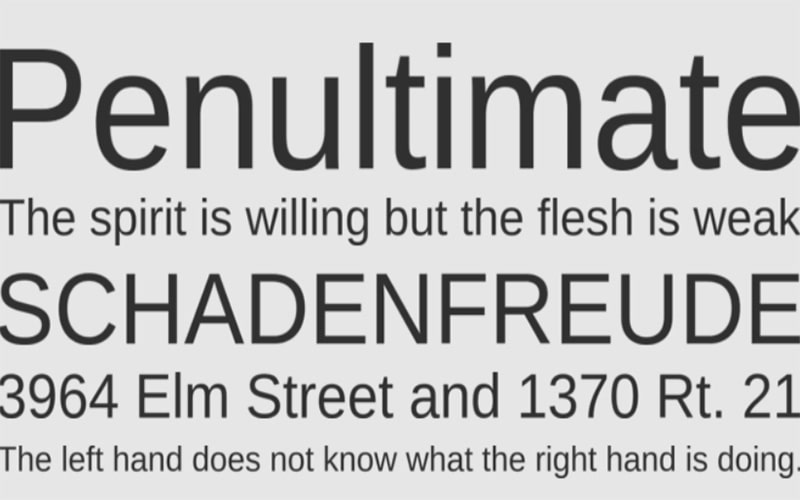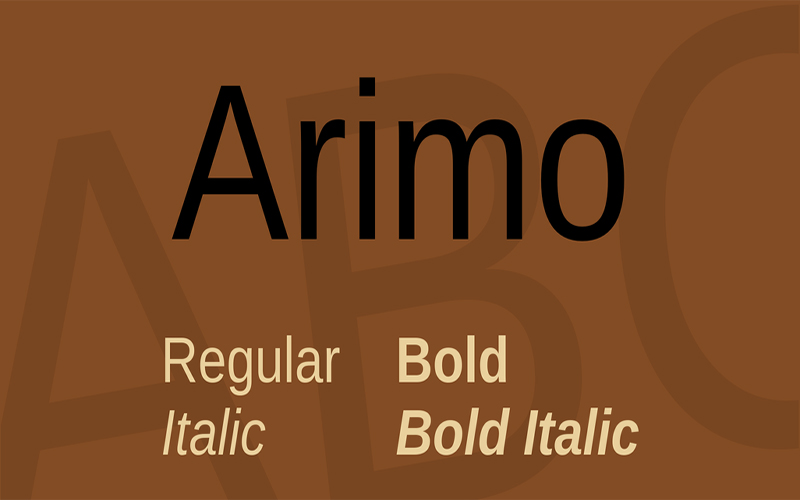
Arimo is an innovative, refreshing sans-serif design that is metrically compatible with Arial. It was designed by Steve Matteson for the first time.
Arimo offers improved on-screen readability characteristics and the pan-European WGL character set. It was uploaded on December 20, 2010, with improved hinting.
This font solves the needs of developers looking for width-compatible fonts to address document portability across platforms.
Steve Matteson is a typeface designer and an owner of Matteson Typographics and was formerly Type Director for Monotype and Ascender Corp.
Arimo Font
This font has four styles available with Arimo Regular, Arimo Italic, Arimo Bold, Arimo Bold Italic. Arimo is a Bold type font that can be used on any device such as PC, Mac, iOS, and Windows.
This excellent font has come with 82 characters set like 26 uppercase letters, 26 lowercase letters, and 10 numbers. In addition to the ligatures, 20 special symbols are available, including punctuation marks.
It supports more than 100 multiple languages that expand all over the world. Many designers prefer to work with this elegant font.